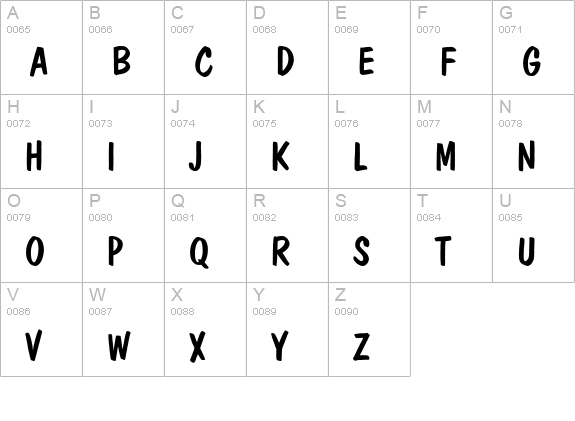
Polka Regular Font Details
Polka Regular is the standard, neutral variant in the Polka typeface family \xE2\x80\x94 well suited to general body text, paragraphs, and standard typographic work.
Polka Regular font is a charming and playful typeface that is perfect for adding a touch of whimsy to your designs. With its rounded shapes and bouncy letterforms, this font exudes a sense of fun and lightheartedness. Whether you're working on a party invitation, a children's book, or a branding project that calls for a friendly vibe, Polka Regular is sure to make a delightful addition to your font collection. What's even better is that Polka Regular is available for free download at FontsMarket.com, making it easily accessible to anyone looking to add a touch of cheer to their projects. So go ahead and give your designs a burst of personality with the delightful Polka Regular font - your audience will thank you for it!